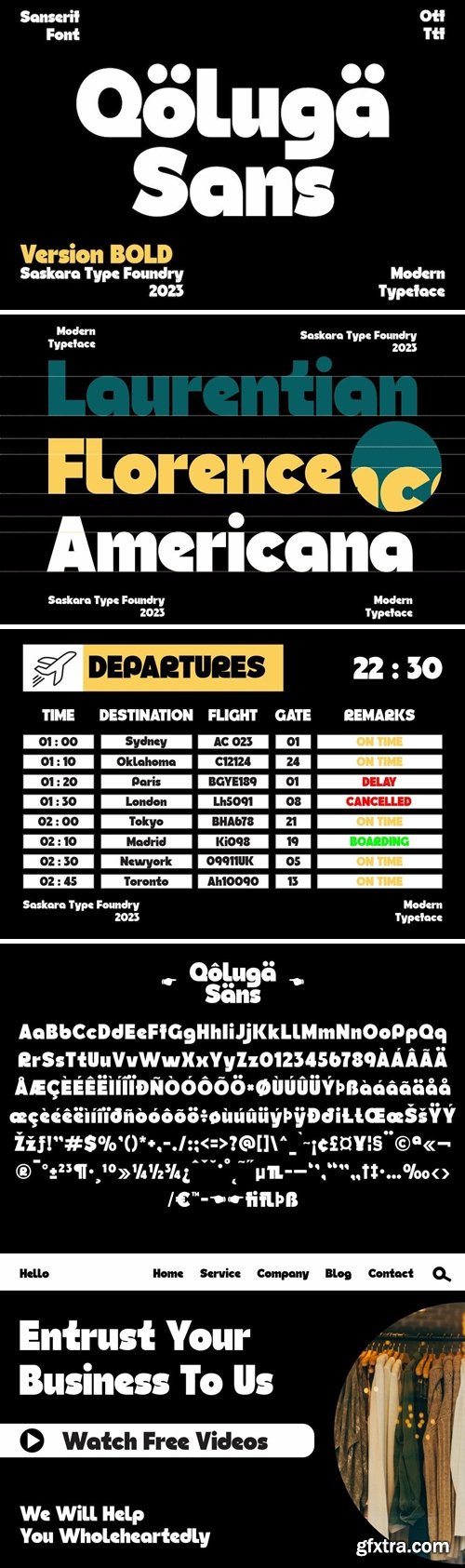
Qoluga Sans Family Font
Qoluga Sans is a modern stylized Sanserif font packed powerful and dynamic, Great font for printing logos, labels, flayers, Brochures, Signage, Pubs, Shirt Designs, Tattoo Shops, Barber shops, Handmade Brands, Web Displays anything related to modern style, vintage style etc.